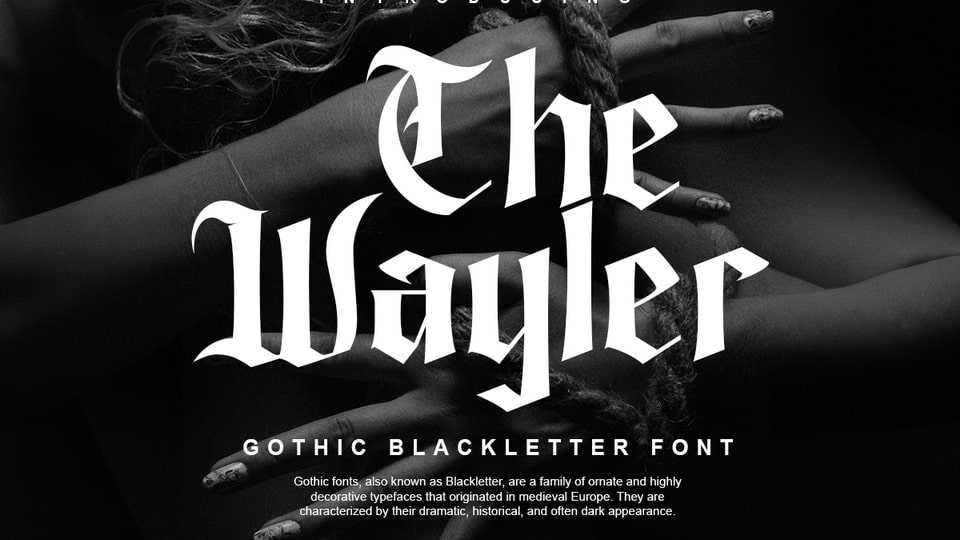
Download The Wayler font, a gothic blackletter typeface for your design forged for those who dare to stand out. With sharp edges, aggressive strokes, and a rebellious soul.